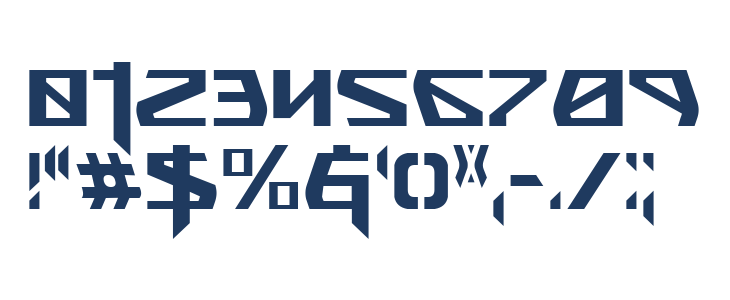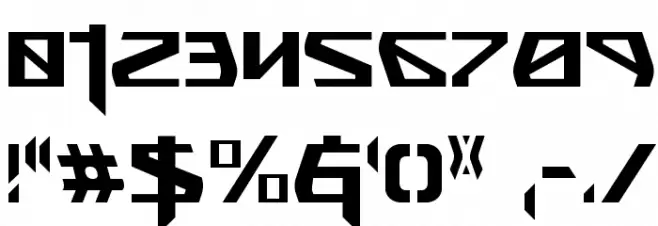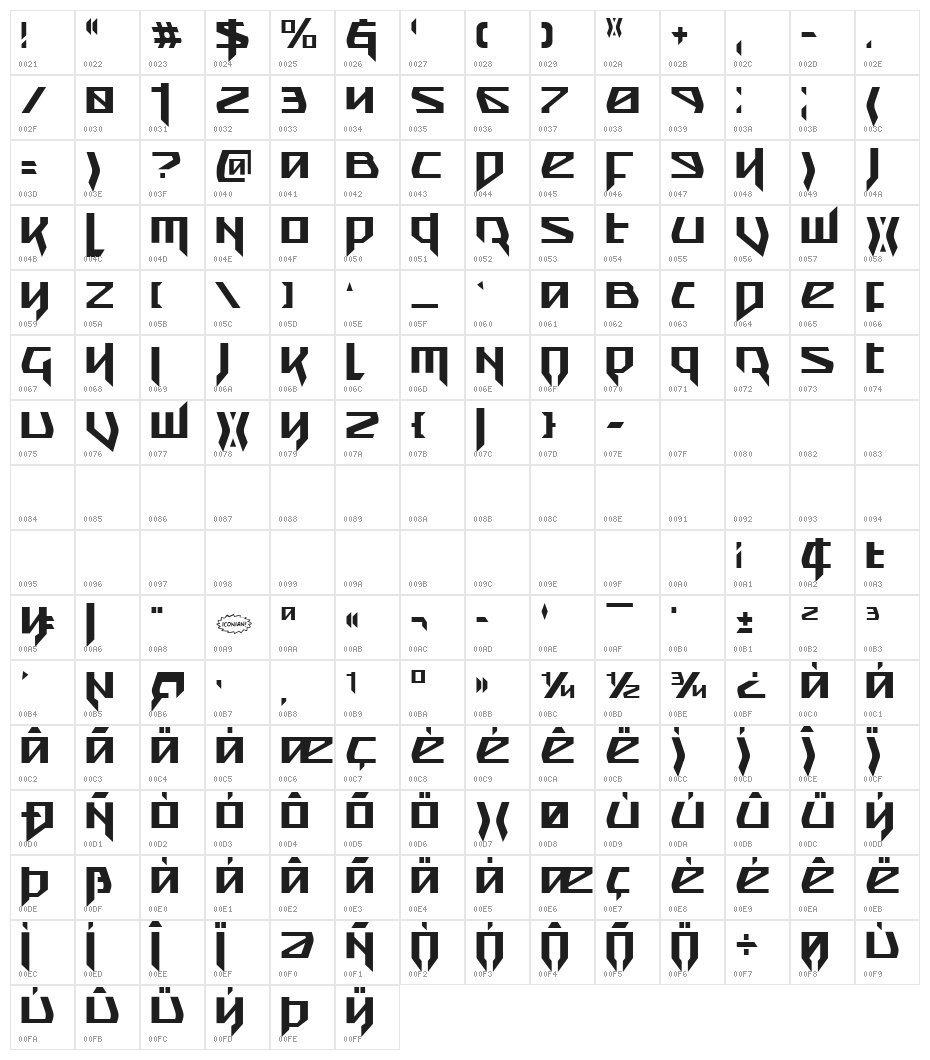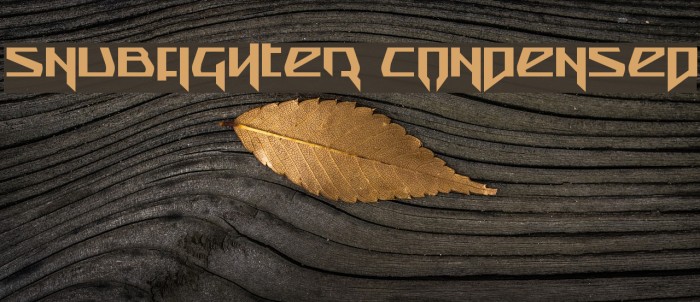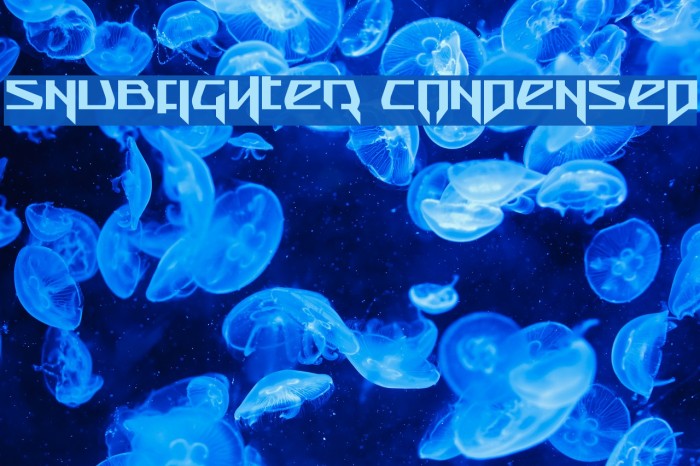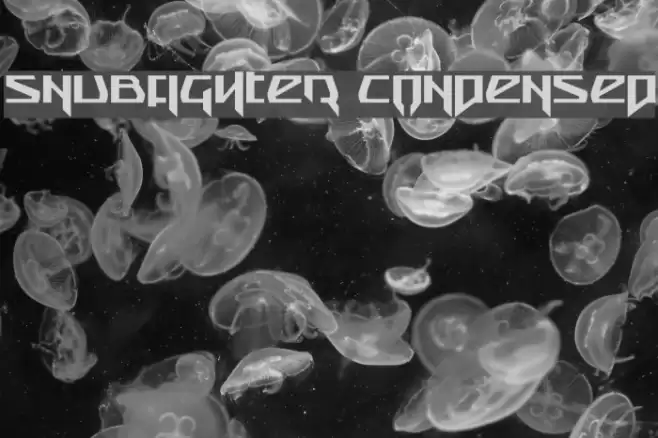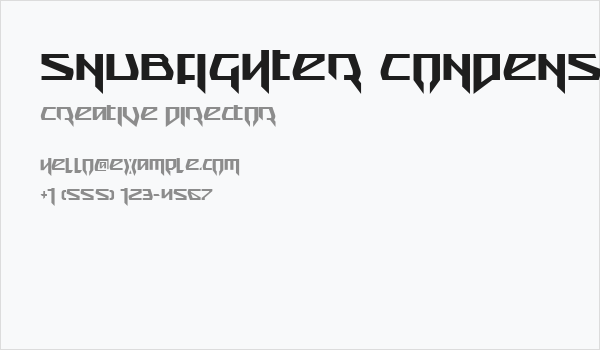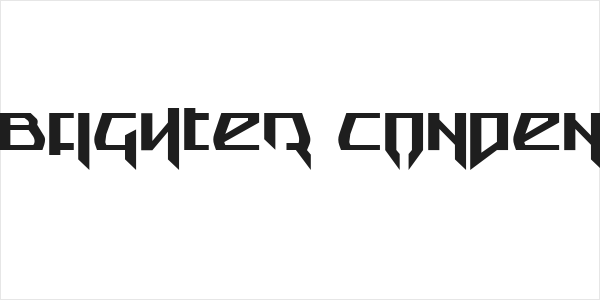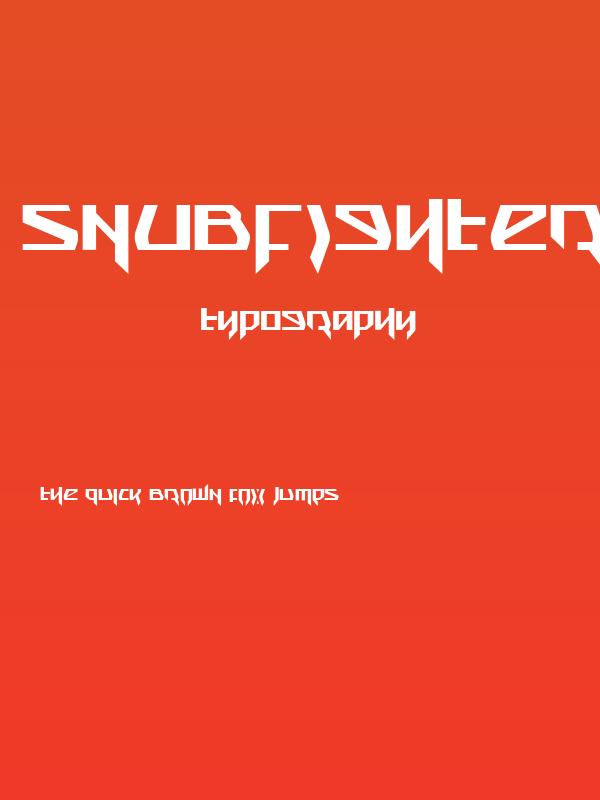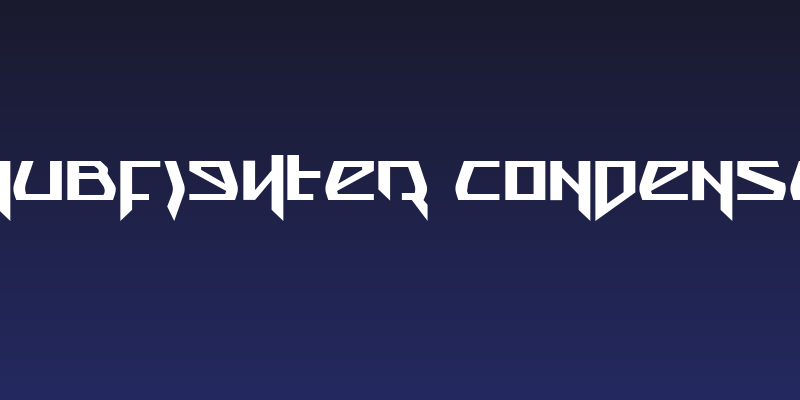
Snubfighter Condensed Font
Snubfighter Condensed Description
This font features a bold, angular design with sharp edges and a futuristic aesthetic. The characters are constructed with geometric precision, giving them a dynamic and aggressive appearance. The uppercase and lowercase letters maintain a consistent style, with each character exhibiting a unique angular cut that enhances its modern look. The numerals and special characters follow the same design principles, ensuring uniformity across all glyphs. This font is ideal for projects that require a strong, impactful visual presence.
| Proposed Projects | Ideal for sci-fi themed posters, video game titles, and branding for tech companies. |